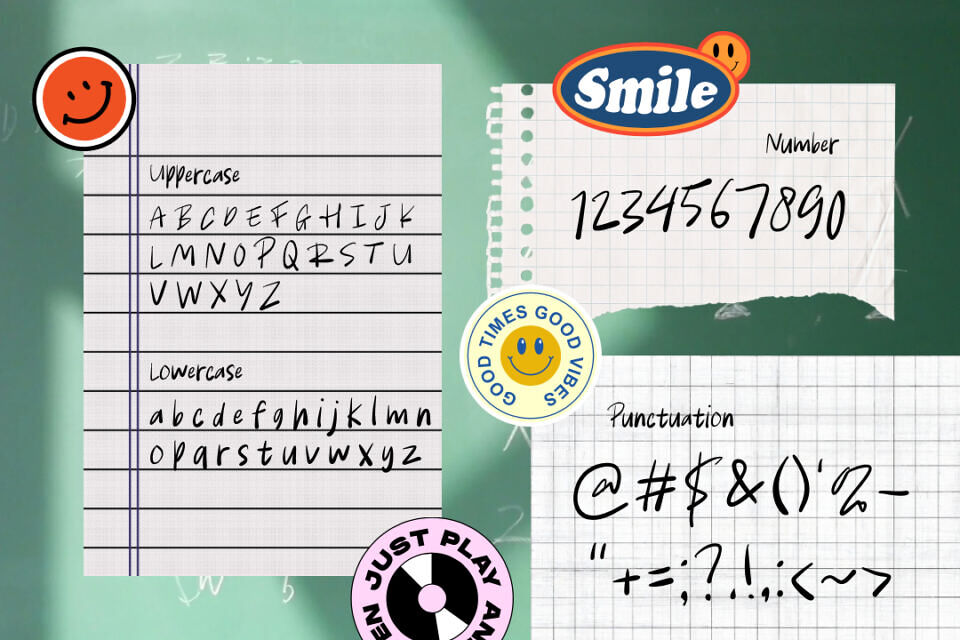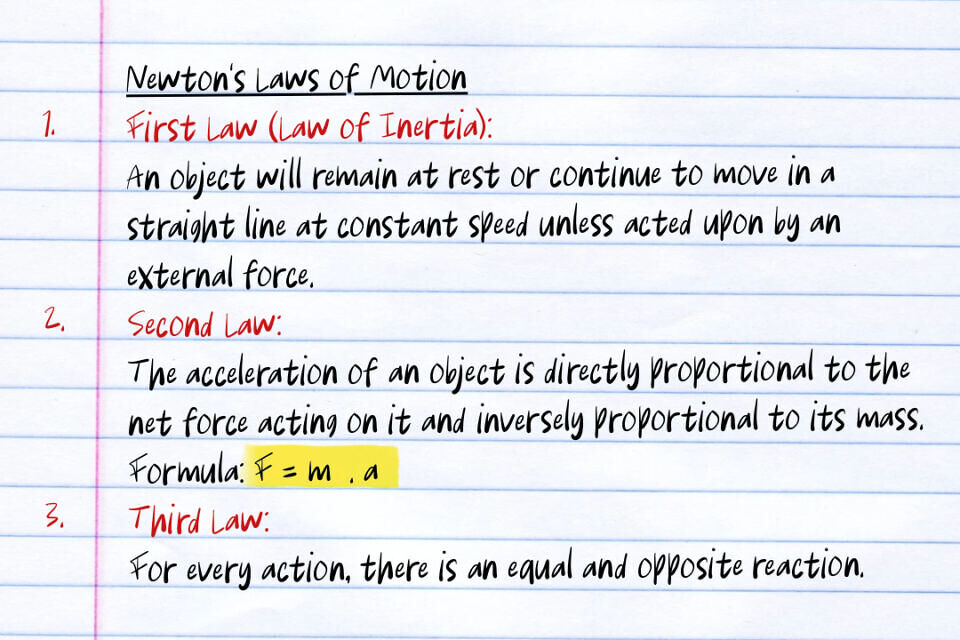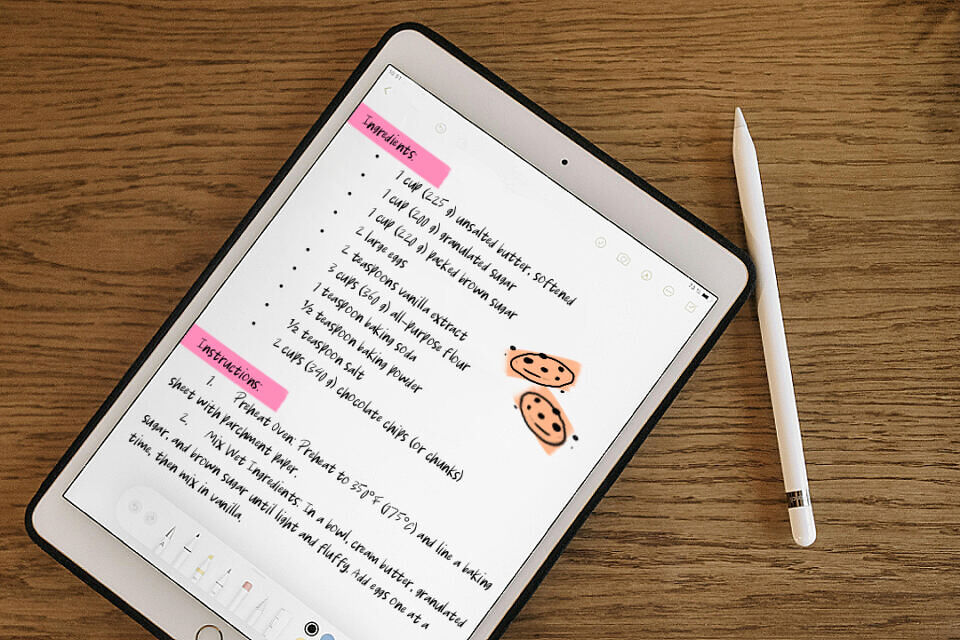
Introducing Authentic Pen, a wonderfully natural handwritten font designed to bring genuine human touch to your creative projects. Crafted with the organic flow of a brush pen, this elegant typeface offers a realistic and highly legible script perfect for conveying a sense of authenticity and personal connection.
Whether you’re designing heartfelt invitations, elegant branding, social media graphics, or stylish quotes, Authentic Pen adds an effortlessly chic and sophisticated flair.